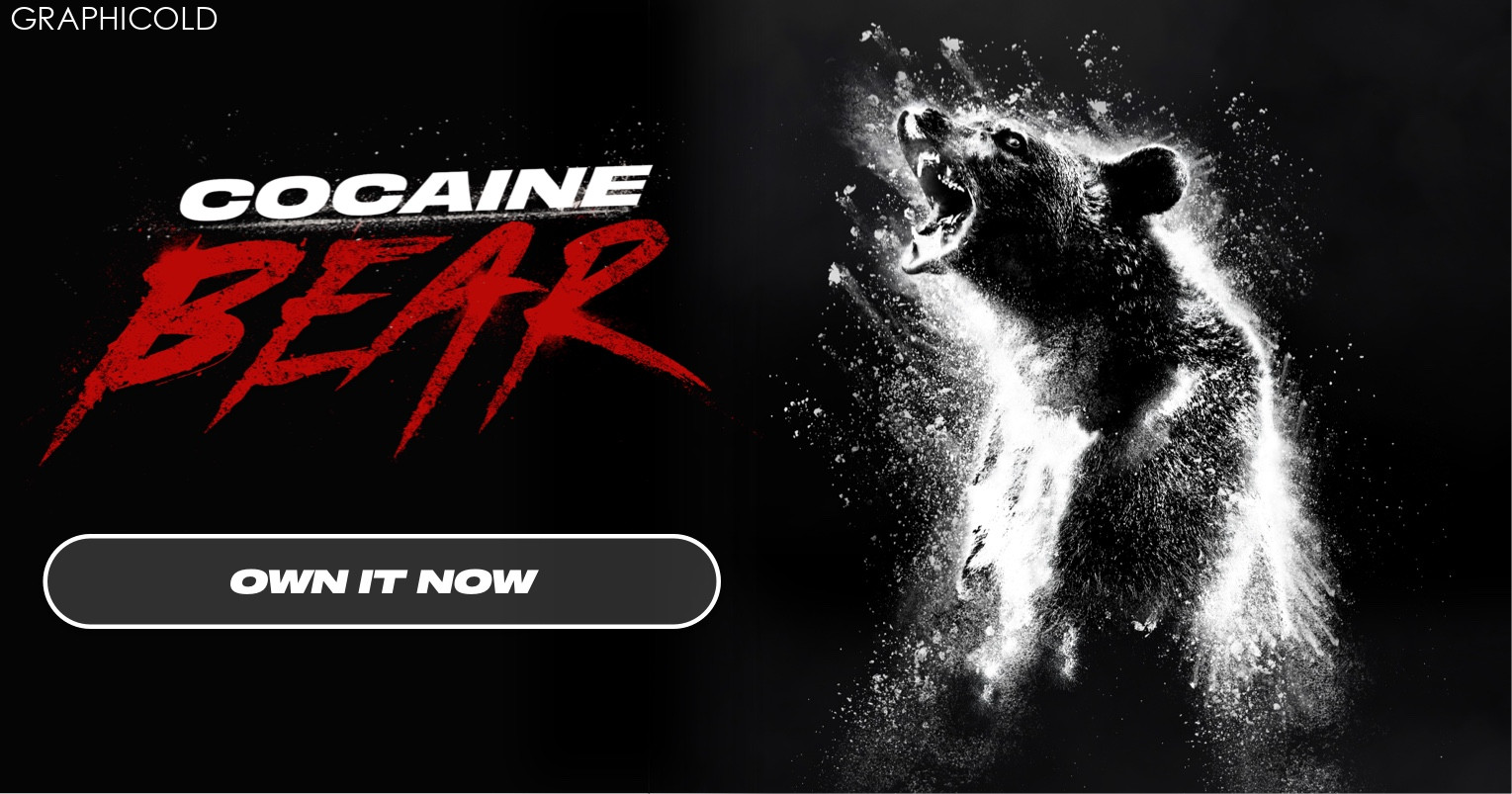
The Wild And Dangerous Tale Of The Cocaine Bear Font
If you’re a fan of typography and design, you may have heard of the infamous “Cocaine Bear” font. This unique and eye-catching typeface has gained quite a following in recent years, thanks in part to its interesting backstory.
So, what is the cocaine bear font, and how did it come to be?
The story begins in 1985, when a drug smuggler named Andrew Thornton parachuted out of a plane over rural Georgia with a duffle bag full of cocaine. Unfortunately for Thornton, his parachute failed to deploy properly, and he plummeted to his death.
The duffle bag, however, landed safely – or so it seemed. It was soon discovered by a black bear, who proceeded to eat its entire contents. The bear, now full of cocaine, went on a rampage and was eventually found dead days later. The incident became known as the “Cocaine Bear” case and has since become a legend in the drug smuggling world.
Fast forward to 2021, and the bear has inspired a new generation of designers. The Cocaine Bear font, created by artist and designer Billy Butcher, is a bold and expressive typeface that captures the spirit of the story. The letters are jagged and rough, with a hand-drawn feel that harkens back to the wild and untamed nature of the bear.
What sets the Cocaine Bear font apart from other typefaces is its distinct personality. It’s not just a font – it’s a statement. It’s a reminder that design can be fun and playful, even in the face of tragedy. And it’s a testament to the power of storytelling and how it can inspire creativity.
Type design enthusiasts have been quick to embrace the Cocaine Bear font. It’s been featured in design blogs and social media posts, and it’s even been used in commercial projects. But it’s not just about the font itself – it’s about the story behind it. As Butcher himself has said, “The Cocaine Bear font is more than just a font. It’s a symbol of creativity, resilience, and the human spirit.”
So, if you’re looking for a typeface that’s unique, memorable, and has a bit of a wild side, the Cocaine Bear font might just be what you’re looking for. Whether you’re a designer, a marketer, or just someone who loves interesting stories, this font is sure to capture your attention. Just be sure to use it responsibly – unlike that poor bear in Georgia.